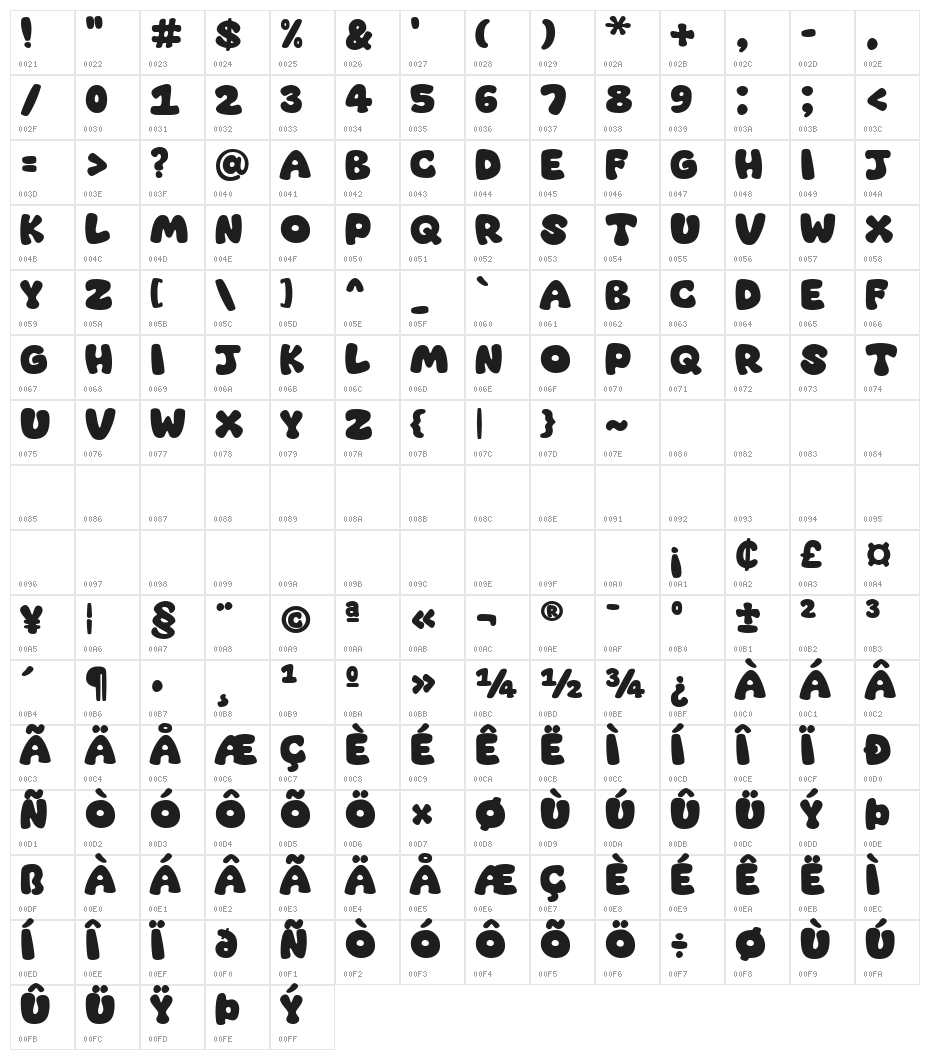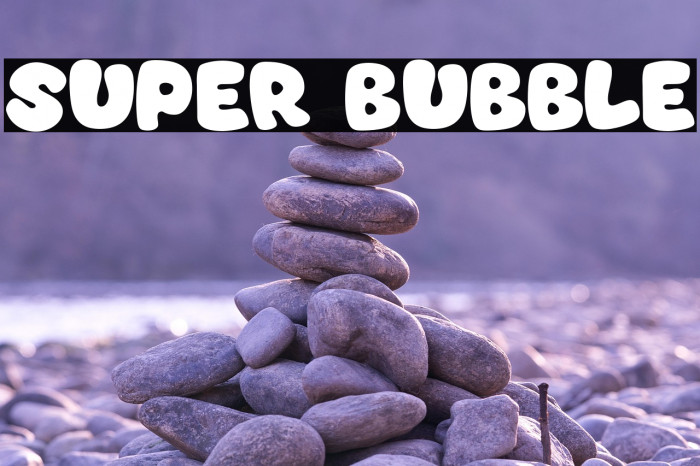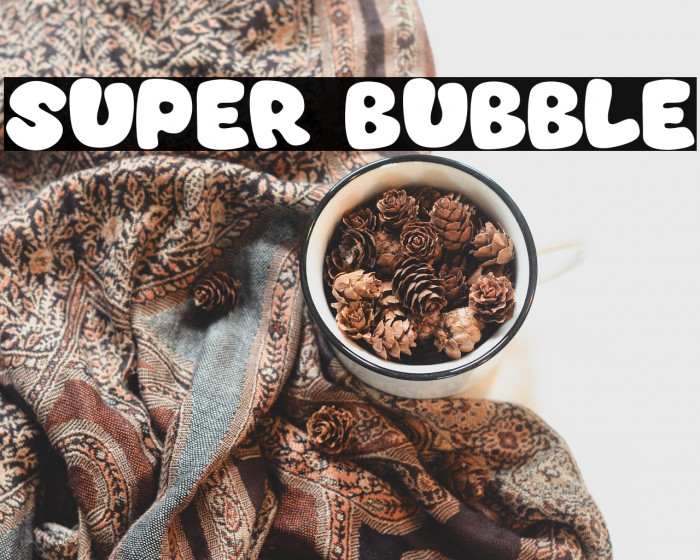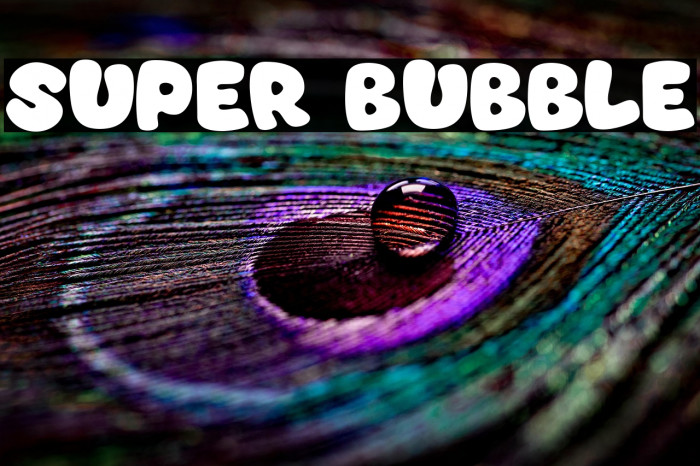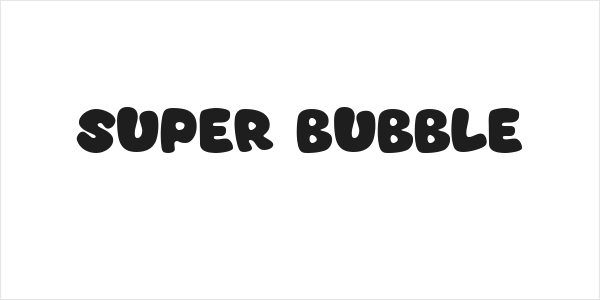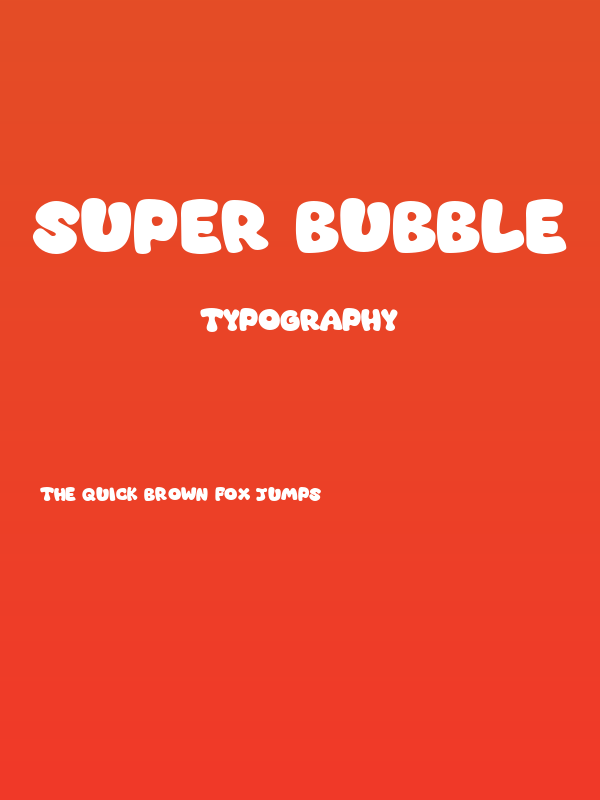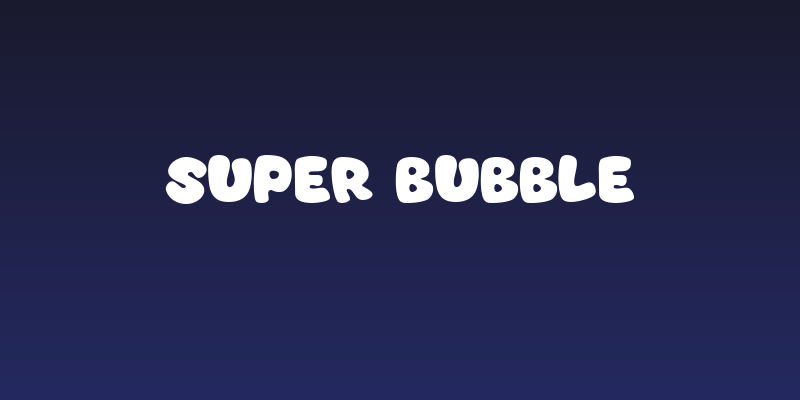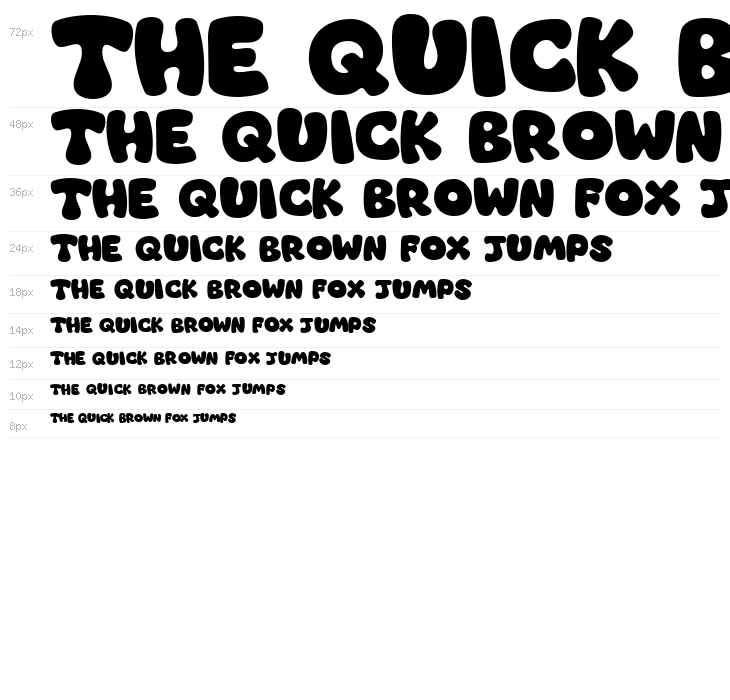
Super Bubble Font
Super Bubble Description
This playful and bold font features rounded, bubble-like characters that exude a sense of fun and whimsy. The letters are thick and have a uniform stroke width, giving them a strong presence on the page. The overall design is reminiscent of cartoon or comic styles, making it ideal for projects that require a lighthearted and approachable feel. The characters are evenly spaced, ensuring readability despite their unconventional shapes. This font is particularly suited for creative and informal applications, where a touch of humor and personality is desired.
| Use Case | Headlines, Logos, Posters, Invitations |
| Proposed Projects | Perfect for children's books, comic strips, playful branding, party invitations, and any project needing a whimsical touch. |